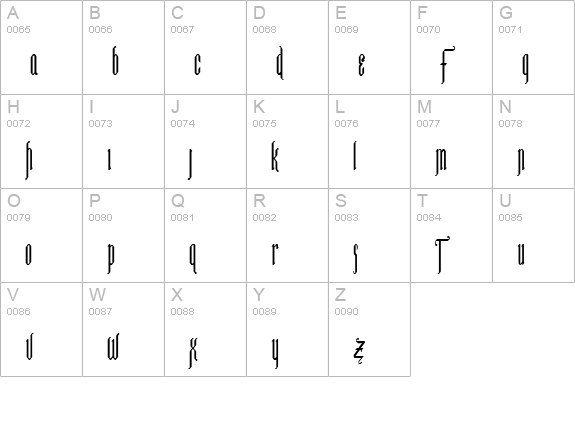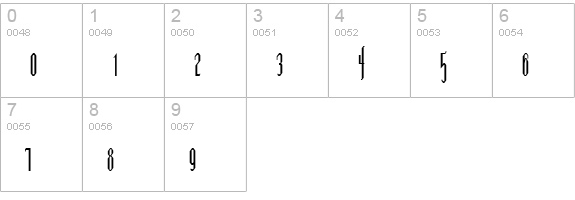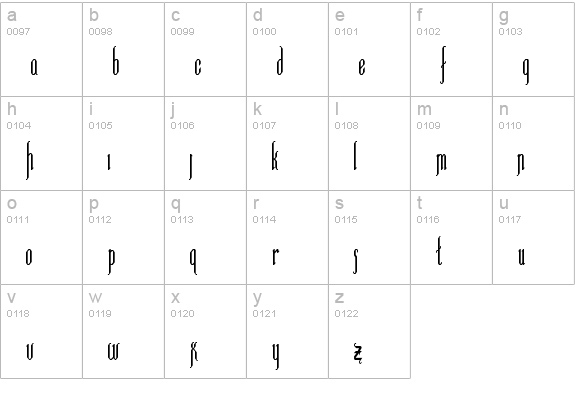
IpswichCondensed Bold Font Details
IpswichCondensed Bold is a strong, high-contrast variant in the IpswichCondensed typeface family \xE2\x80\x94 well suited to headlines, attention-grabbing titles, and strong calls-to-action.
IpswichCondensed Bold font is a versatile and powerful typeface that exudes confidence and impact. With its bold and condensed design, it commands attention and makes a statement. This font is perfect for a wide range of design projects, from headlines and logos to posters and advertisements. The clean and sharp lines of IpswichCondensed Bold font give it a modern and professional look, while still maintaining a touch of elegance. Its condensed nature allows for more text to fit in a limited space without compromising legibility or readability. One of the great advantages of IpswichCondensed Bold font is that it is freely available to download at FontsMarket.com. This means that you can easily access this top-quality font without any cost. Whether you are a professional designer or a hobbyist, this font is a valuable addition to your typographic arsenal. The versatility of IpswichCondensed Bold font is further enhanced by its extensive character set, including a wide range of punctuation marks, numerals, and special characters. This font supports multiple languages, making it suitable for global design projects. IpswichCondensed Bold font is designed with meticulous attention to detail, ensuring smooth and consistent letterforms. Its high-quality rendering makes it look stunning at any size or resolution, whether it is used in print or digital mediums. Overall, IpswichCondensed Bold font is a must-have for any designer who wants to make a bold statement with their typography. With its free availability on FontsMarket.com, there is no reason not to add this exceptional font to your collection.